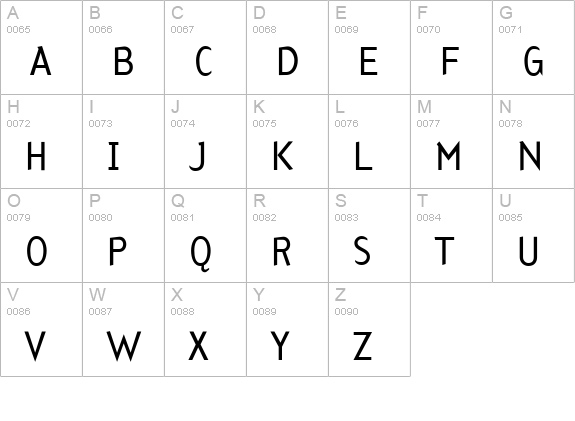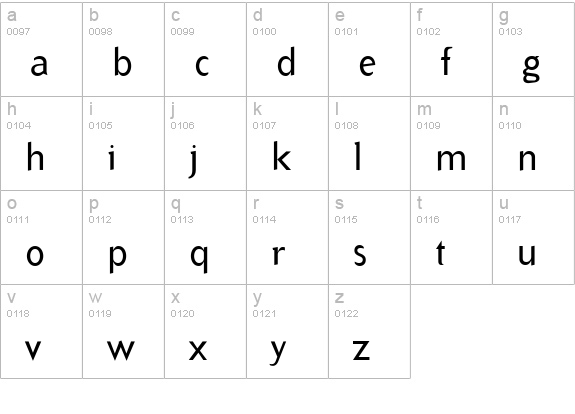
Arbitrary font is a versatile and modern typeface that is perfect for a wide range of design projects. With its clean lines and contemporary feel, this font is sure to make your designs stand out. The best part is that it is completely free to download at FontsMarket.com, making it easily accessible for all your creative needs. Whether you're designing a website, creating a logo, or working on a print project, Arbitrary font is a great choice that will add a touch of sophistication to your work. Don't miss out on this fantastic free font and elevate your designs today!